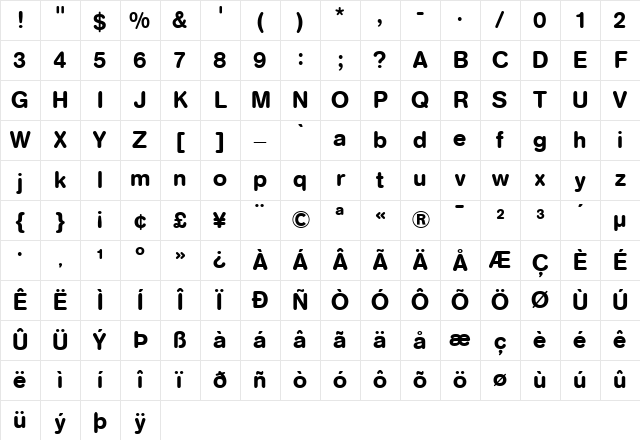
Complete AGRoundedMedium- Book glyph index. Displaying only characters natively supported by AGRoundedMedium- Book font.
AGRoundedMedium- softens its letterforms with rounded terminals, giving it an approachable, friendly quality that works well in consumer-facing and digital contexts.
Font Pairing: Pairs well with a rounded or humanist sans for body copy, maintaining the friendly tone without relying on AGRoundedMedium- to carry extended reading.
Pro Tip: Use AGRoundedMedium- for UI elements, app interfaces, and anywhere a friendly, approachable tone needs to be maintained without sacrificing clarity.